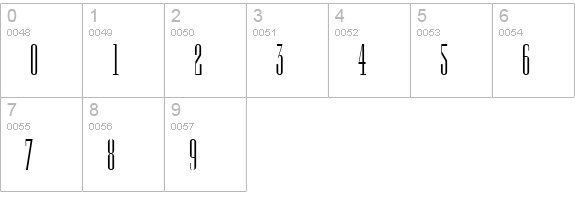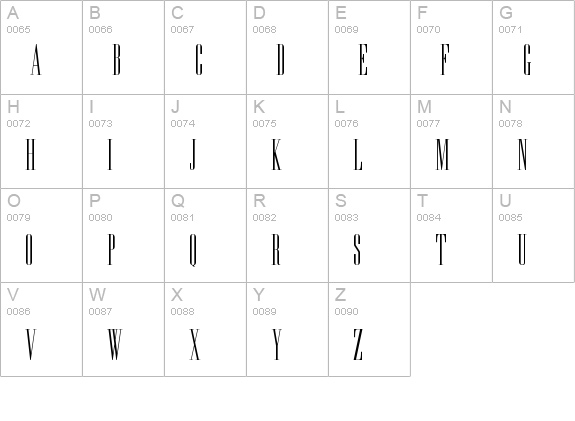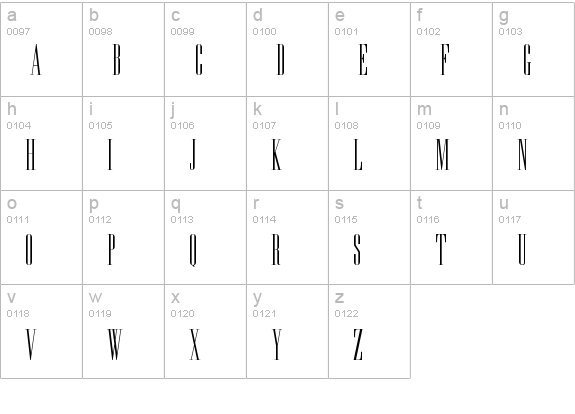
Edition Regular Font Details
Edition Regular is the standard, neutral variant in the Edition typeface family \xE2\x80\x94 well suited to general body text, paragraphs, and standard typographic work.
Edition Regular is a modern and versatile font that embodies elegance and simplicity. With its clean lines and balanced proportions, this font is perfect for a wide range of design projects, from branding and advertising to editorial and web design. The Edition Regular font is characterized by its legibility and readability, making it an ideal choice for both large blocks of text and small captions. Its timeless style and carefully crafted letterforms ensure that your message is conveyed with clarity and professionalism. What sets Edition Regular apart is its accessibility - it is available for free download at FontsMarket.com. This means that you can easily incorporate this stunning font into your projects without breaking the bank. Whether you are a student, a professional designer, or someone who simply appreciates high-quality typography, Edition Regular is a must-have in your font collection. Don't miss out on the opportunity to enhance your designs with Edition Regular. Download it for free today at FontsMarket.com and elevate your projects to new heights of sophistication and style.